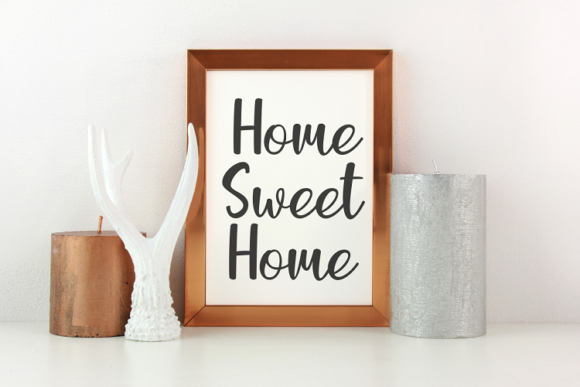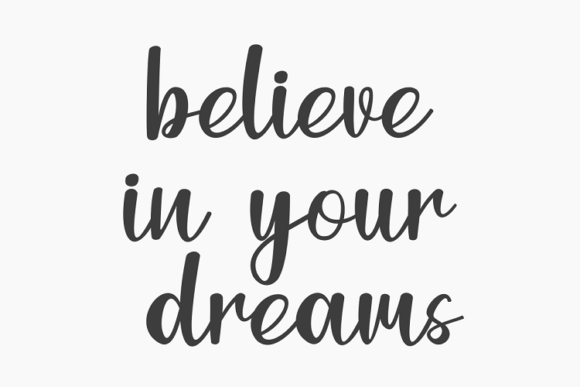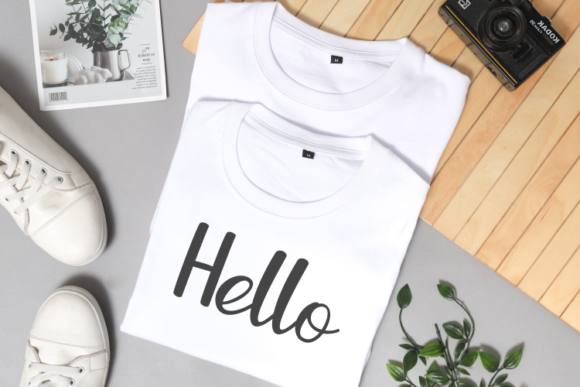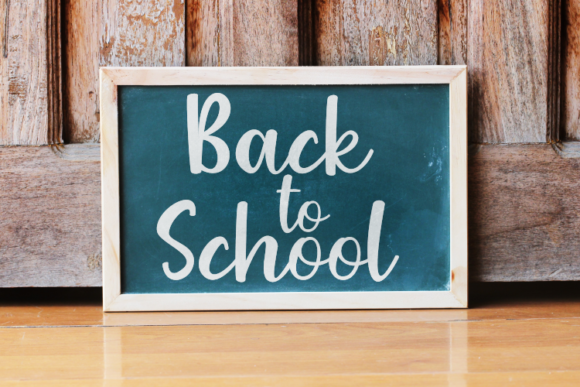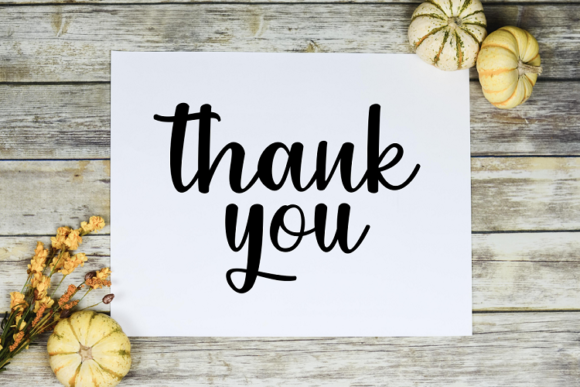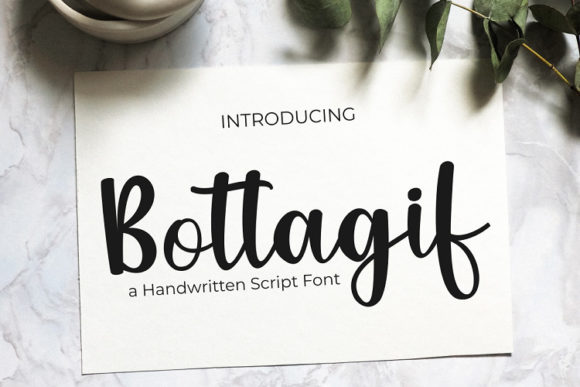
The Designer’s Delight: Uncovering the Charm of Bottagif Font
I’ll never forget the time I was working on a luxury branding project for a high-end jewelry client. I had spent hours perfecting the logo design, but something felt off. The font I had chosen just wasn’t giving me the sophisticated, high-end feel I was going for. That’s when I stumbled upon Bottagif Font, and it completely transformed my design. In this article, I’ll share my experience with Bottagif, its unique features, and how to make the most of it in your design projects.
An Honest Review of Bottagif Font
Bottagif is a beautiful and light handwritten font with a unique feel and a stunning impact. It will add a luxury spark to any design project that you wish to create! Here’s what I love about it:
- ✨ Elegant and refined, perfect for luxury branding and high-end designs
- 💫 Unique feel that sets it apart from other handwritten fonts
- 🎨 Versatile and can be used for a variety of design projects, from logos to social media graphics
While Bottagif is an amazing font, it’s not without its quirks. Here are a few things to keep in mind:
- 🤔 Some characters may not work well in all contexts, such as the letter ‘Q’ which can appear a bit awkward in certain combinations
- ⚠️ Limited availability of certain OpenType features, which may limit its use in certain design software
The Story Behind Bottagif Font
Bottagif was designed by a talented type designer who wanted to create a font that would evoke the feeling of luxury and sophistication. Inspired by traditional calligraphy and modern digital design, Bottagif is a unique and elegant font that’s perfect for designers who want to add a touch of class to their work.
| What is the best use for Bottagif Font? | Bottagif is perfect for luxury branding, high-end designs, and any project that requires a touch of sophistication. |